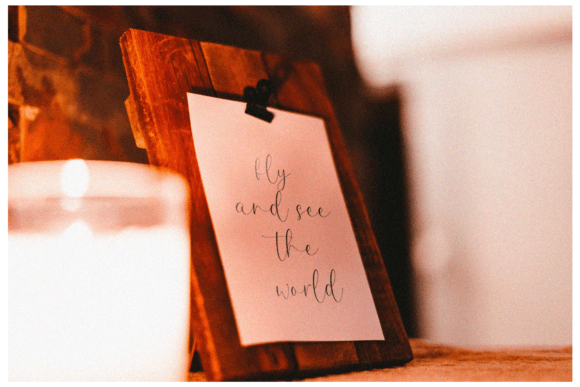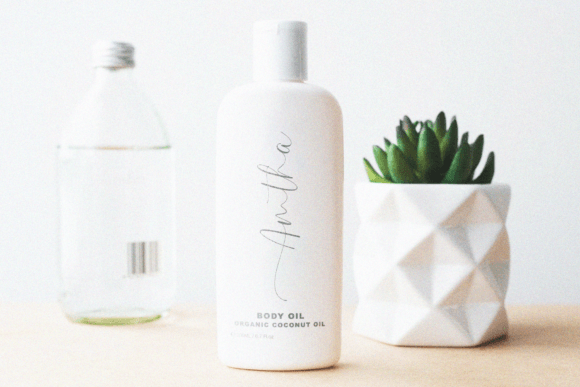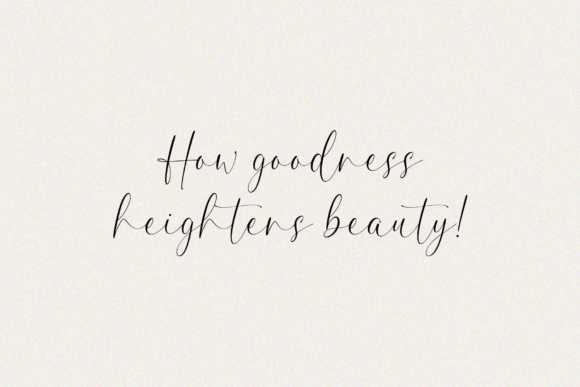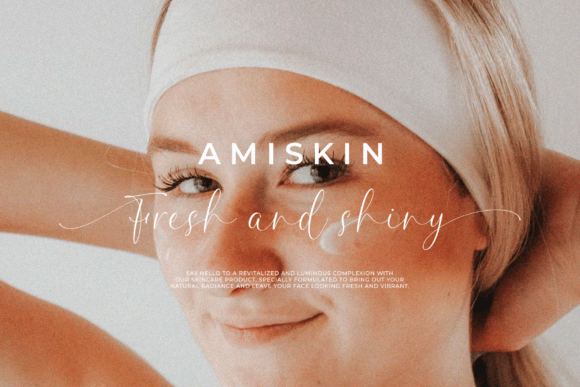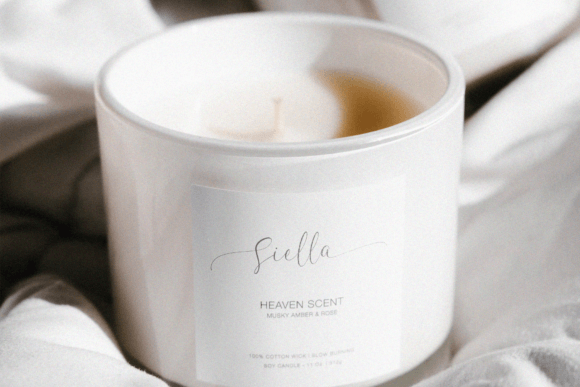
The Perfect Touch of Whimsy: Unveiling the Amellina Font
As designers, we’ve all been there – staring at a blank canvas, struggling to bring our ideas to life. It’s the moment when a single font can make or break the entire project. For me, that moment came when I stumbled upon the enchanting Amellina Font. Its delicate script and beautiful swashes immediately captured my attention, and I knew I had to learn more.
The Amellina Font is a versatile and elegant script font, perfect for adding a touch of whimsy to any project. Whether you’re creating an invitation, designing social media graphics, or crafting a special card, Amellina Font is sure to elevate your work. Its versatility and charm make it a valuable addition to any designer’s toolkit, allowing you to add a personal touch to your creations.
- Font Family: Amellina
- Unique Characteristics: Elegant, cursive script with a touch of vintage charm; suitable for formal and creative applications, such as invitations, wedding designs, and luxury branding
Amellina Font Review
Overall, I think the Amellina font is a beautiful and elegant script font. ✨ The flowing lines and soft curves give it a sophisticated feel that’s perfect for high-end branding and design projects. ✨ The font’s versatility allows it to be used in a variety of contexts, from fashion and luxury to wedding and event invitations.
The Amellina font also excels at legibility, making it easy to read even in smaller sizes. ✨ This is particularly important for digital applications where text is often viewed on smaller screens.
While the Amellina font is a great choice for many projects, there are some limitations to consider:
- ⚠️ The font may be too ornate for certain projects, such as technical documentation or websites with a more minimalist aesthetic.
- ⚠️ The font’s high-end feel may not be suitable for projects that require a more casual or playful tone.
- ⚠️ The font’s large file size may be a concern for designers working with tight deadlines or limited storage space.
In conclusion, the Amellina font is a great choice for designers who need a high-end, elegant script font. While it may not be suitable for every project, its beauty and versatility make it a valuable addition to any design toolkit.
Tips for Getting the Most Out of Amellina
To get the most out of the Amellina font:
- Use it for headings and titles to add a touch of elegance and sophistication.
- Pair it with a clean and simple font for body text to create a balanced look.
- Experiment with different font sizes and styles to create visual hierarchy and emphasis.
The Amellina font is suitable for:
- Luxury brand marketing materials.
- High-end business presentations and reports.
Alternatives to Amellina Font for Designers
Comparison: While Amellina Font is a modern, sans-serif font, Merriweather is a traditional serif font with a more classic feel. Merriweather is better suited for body text, while Amellina Font is often used for headings and titles.